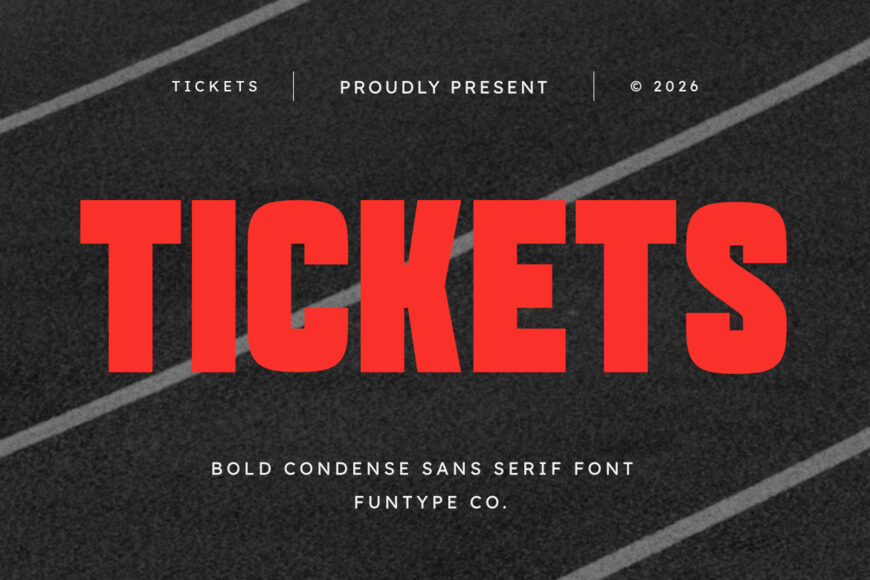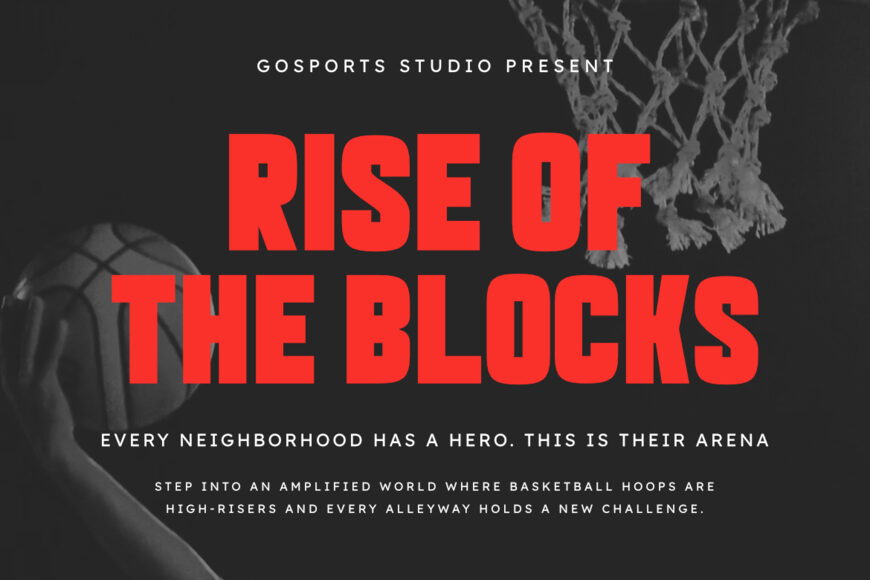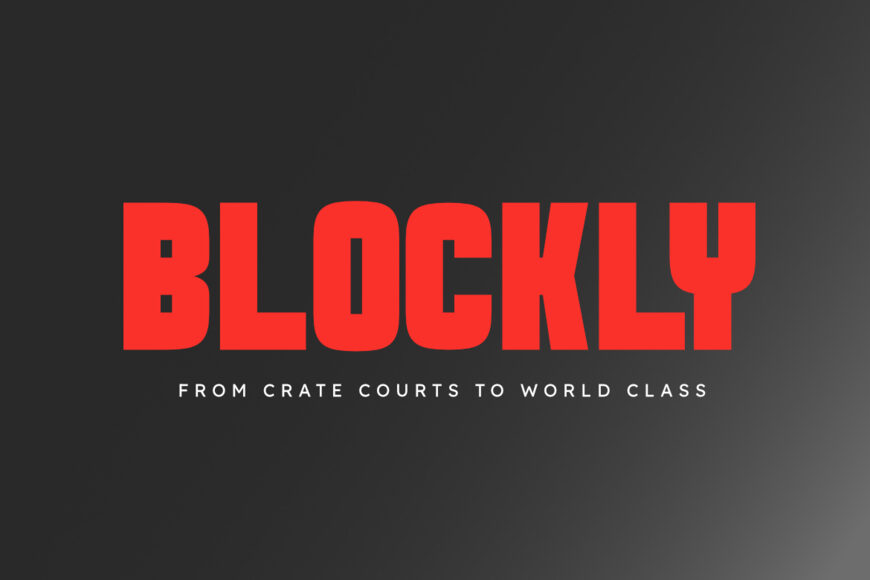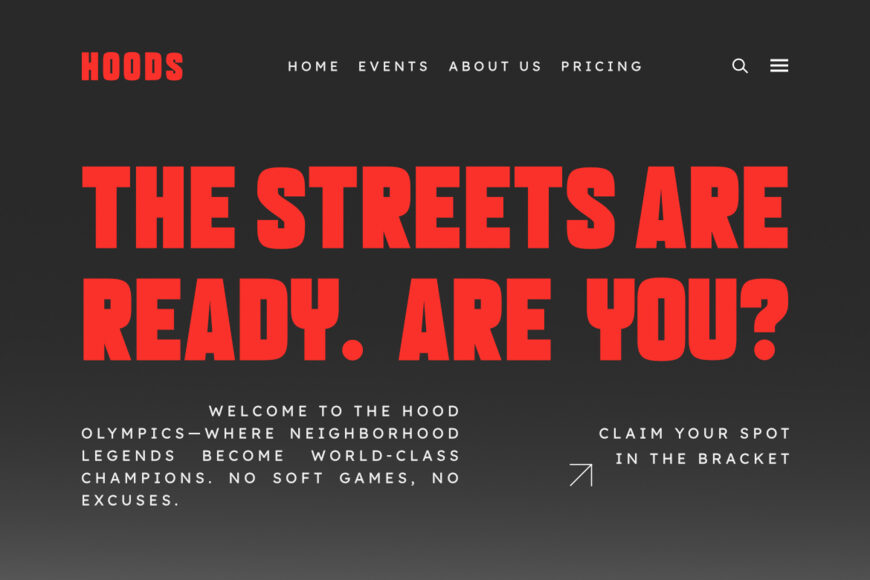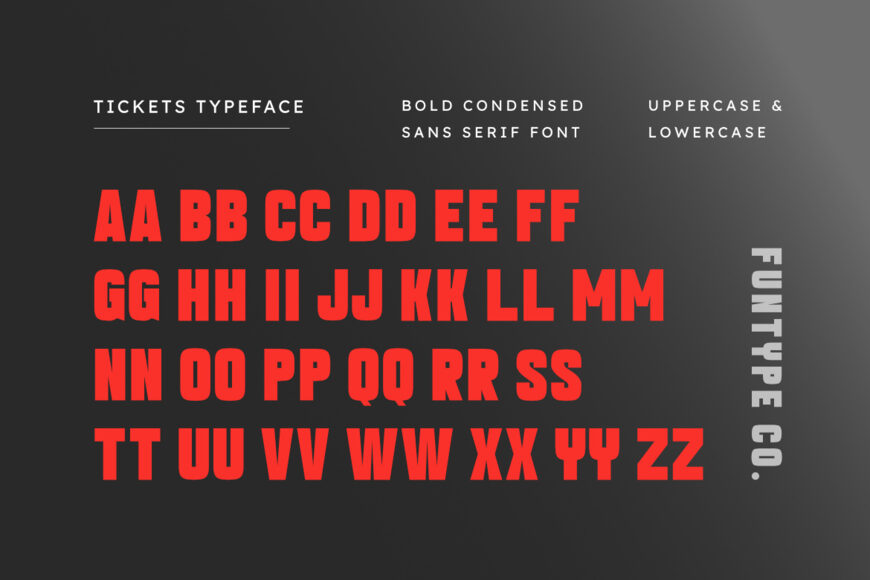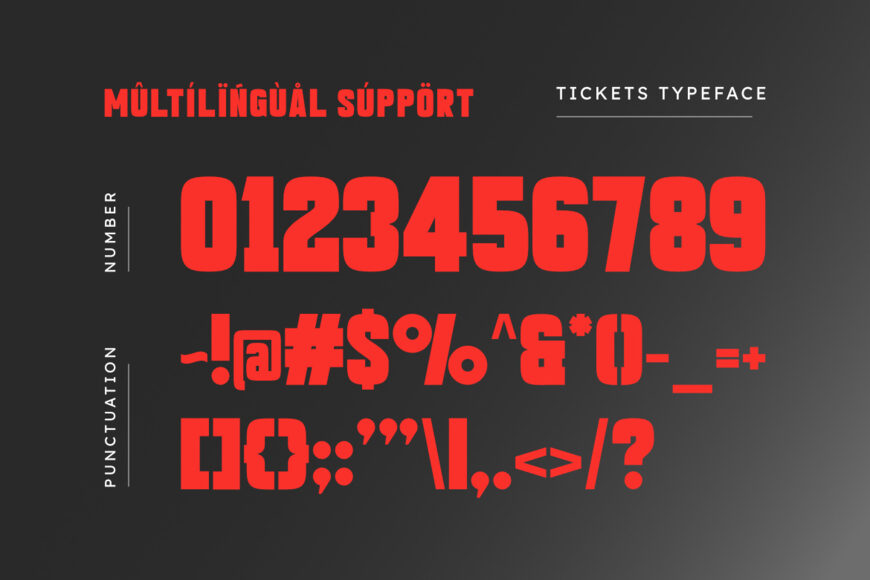
Tickets is a high-impact, bold, and condensed sans serif display font, engineered to deliver a solid athletic presence, strong vertical proportions, and a dynamic display aesthetic to modern visual layouts.
Built with heavy block letterforms and space-saving geometry, Tickets brings an authoritative sports broadcast identity, race event promotion, high-energy editorial publishing, and prominent digital media presence designed to capture immediate visual attention.